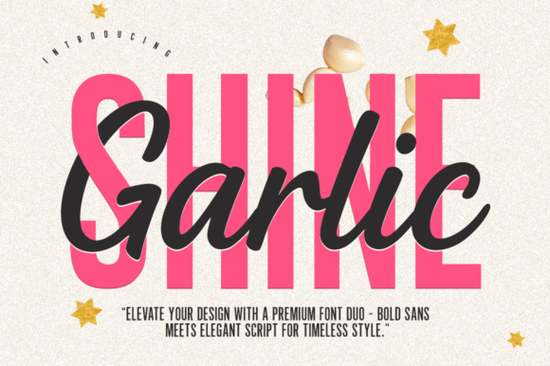
If you've been searching for a font pairing that balances bold modern type with elegant handwritten style, the Garlic Shine Font is worth a close look. It's a font duo that combines a strong sans-serif with a flowing script, giving you two complementary styles in one package. Whether you're designing logos, social media graphics, wedding invitations, or product packaging, this pairing covers a wide range of creative needs without requiring you to hunt for a matching font separately.
What Makes a Font Duo Useful for Designers?
A font duo saves time and guesswork. Instead of manually testing dozens of combinations to find two fonts that work well together, a duo delivers a pre-matched pair. The Garlic Shine Font pairs a commanding sans-serif with a graceful handwritten script, creating natural contrast. This kind of contrast is what gives layouts visual interest one font handles headlines and bold statements, while the other adds warmth and personality to supporting text.
For print-on-demand sellers and small business owners, this means faster design workflows. You pick your duo, apply it, and the result looks polished without extra effort.
Where Does This Font Pairing Work Best?
The versatility of Garlic Shine makes it suitable for a surprisingly broad set of projects:
- Logo design Use the sans-serif for your brand name and the script for a tagline or accent word.
- Social media posts Bold headers paired with handwritten quotes create scroll-stopping graphics.
- Wedding and event stationery The script side brings an elegant, personal feel to invitations and programs.
- Product labels and packaging Clean sans-serif text for details, script for product names or flavor descriptions.
- Blog graphics and thumbnails A quick way to add visual hierarchy and personality to text-heavy images.
If you regularly work on branding projects, having a reliable duo like this in your toolkit means you can deliver consistent results across different applications.
How Does It Compare to Other Sans-Serif and Script Pairings?
What sets Shine Garlic apart is its balance between strength and softness. The sans-serif isn't overly geometric or cold it has enough presence to anchor a design without feeling rigid. The script doesn't go too far into decorative territory either, which keeps it readable at smaller sizes. That middle ground is exactly what makes it practical for everyday design work.
Is This Font Bundle a Good Fit for Crafters?
Absolutely. If you use cutting machines like Cricut or Silhouette, you know that not all script fonts cut cleanly. The handwritten style in this duo has smooth, connected strokes that translate well to vinyl decals, iron-on transfers, and paper crafts. The sans-serif side is equally clean for projects that need crisp, legible text think labels, tags, and stencils.
Crafters who sell on Etsy or at local markets often need fonts that look professional but still feel handmade and approachable. This duo hits that mark without requiring design experience or advanced software knowledge.
Tips for Getting the Most Out of Font Duos
- Assign roles early. Decide which font handles headlines and which handles body text or accents before you start designing.
- Mind the size difference. Pairing a bold sans with a script often works best when the script appears at a smaller or medium size relative to the sans-serif.
- Limit your palette. When using two fonts from the same bundle, sticking to two or three colors keeps the design cohesive.
- Test at multiple sizes. Make sure the script remains legible when scaled down for smaller applications like business cards or product tags.